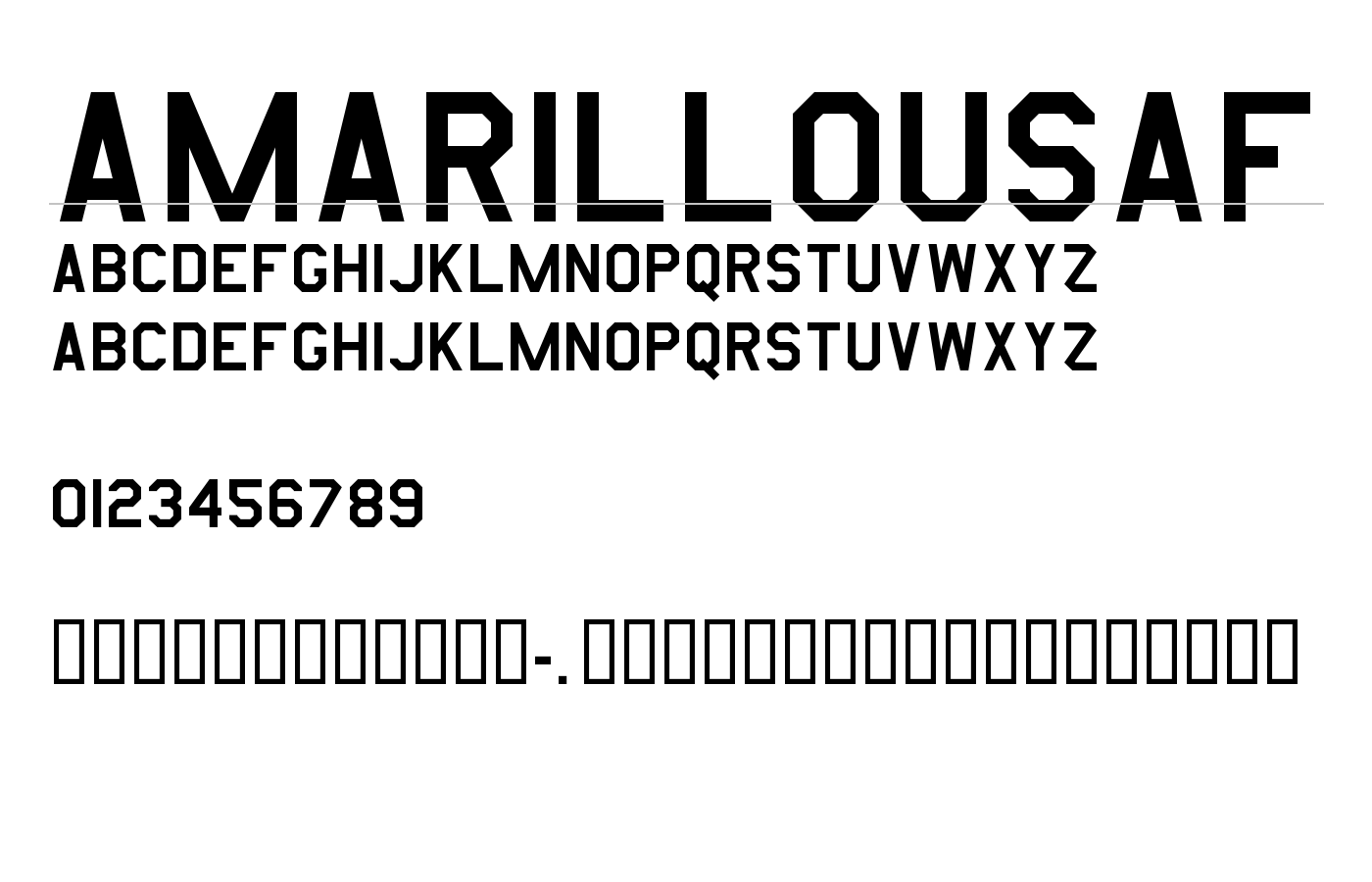
AmarilloUSAF is a bold, condensed sans serif font with strong geometric and industrial influences, featuring sharp angles and uniform stroke widths that create a sturdy, mechanical feel. Its uppercase-only, octagonal letterforms and squared shapes evoke a military or aviation aesthetic, making it ideal for use in branding, signage, or display where a commanding and utilitarian style is desired. This font works particularly well for logos, headlines, and posters that require a bold, no-nonsense appearance with a modern, technical edge.
AmarilloUSAF Font
About AmarilloUSAF Font